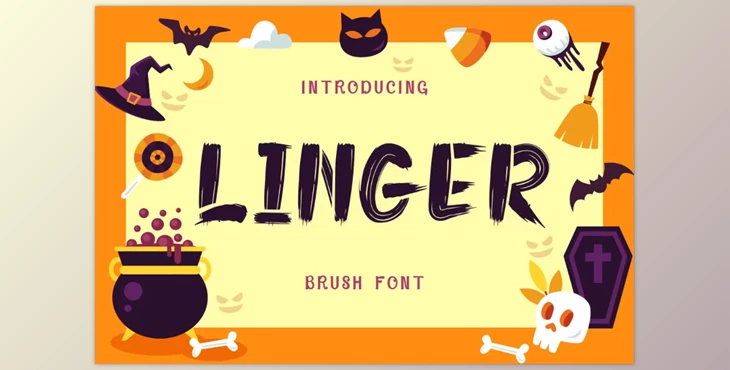
Linger - Brush Font is a bold, textured display typeface with a rough, hand-drawn brush style that evokes a spooky, eerie atmosphere, making it perfect for Halloween-themed designs or projects with a touch of horror. Its versatile aesthetic is ideal for crafting eye-catching logos, branding materials, posters, movie titles, book covers, and magazine layouts. The font's unique texture also suits applications like stickers, business cards, and greeting cards, adding a dramatic flair to any design. With Linger, your text will make a lasting impression, perfect for projects that demand a striking and memorable visual impact.